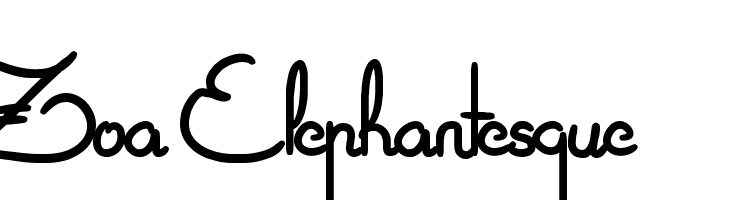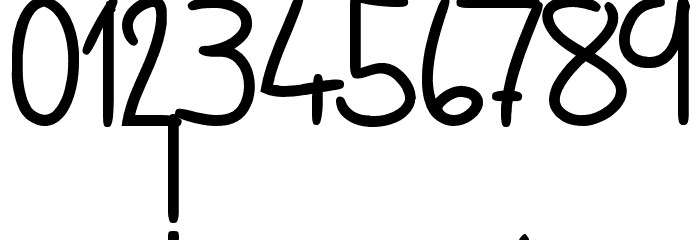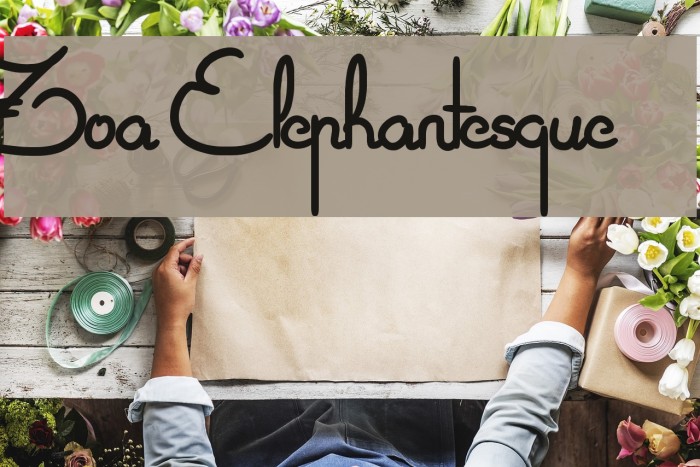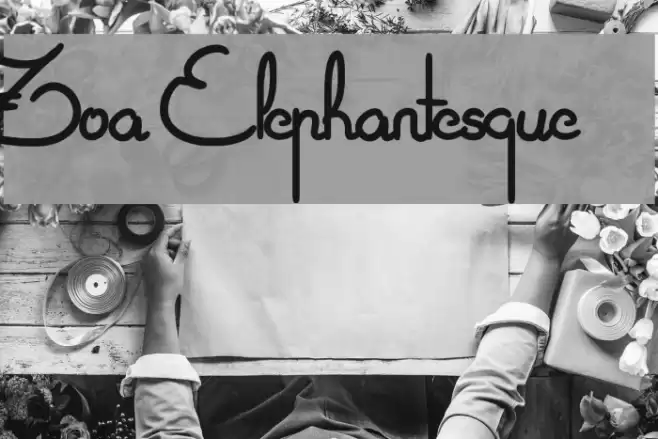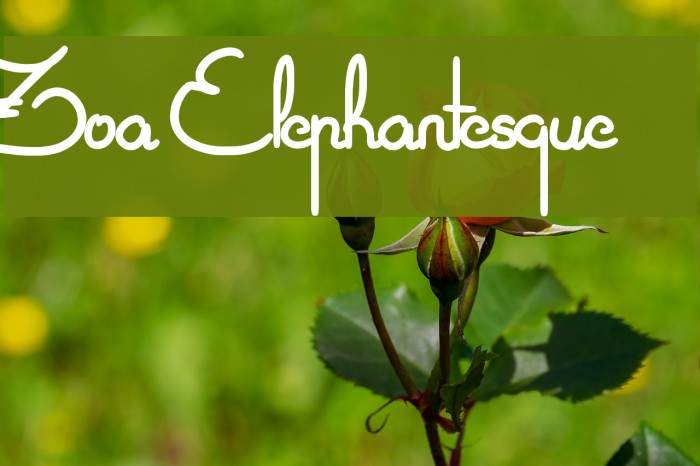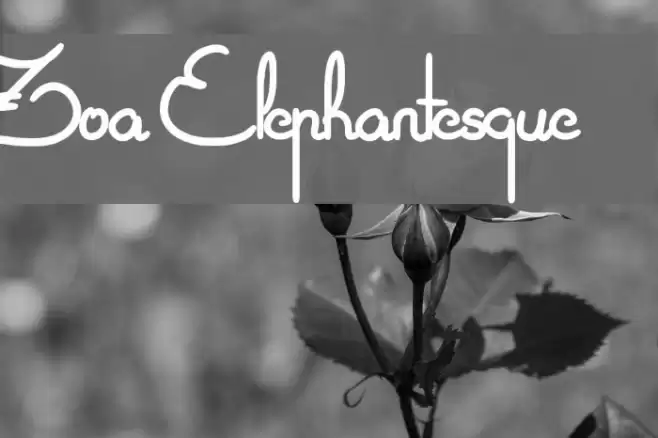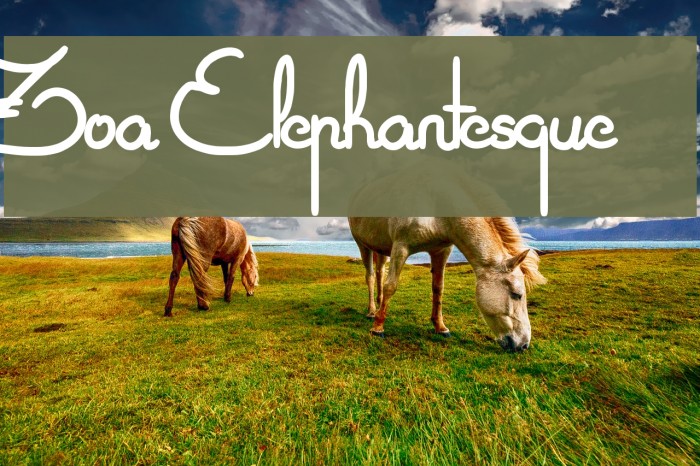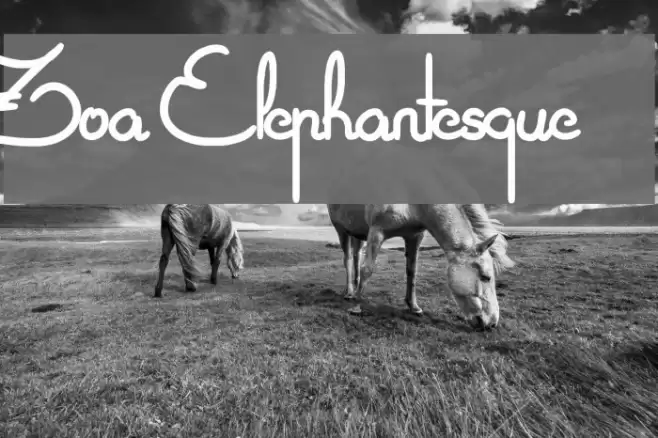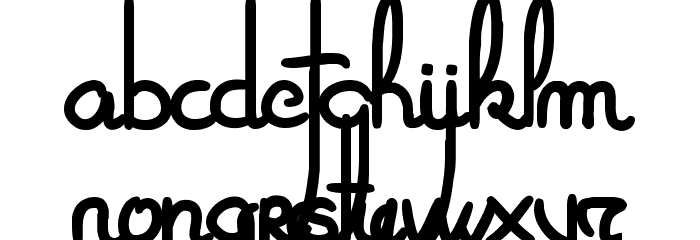
Zoa Elephantesque Font
Zoa Elephantesque Description
This font features a playful and whimsical design with a handwritten style. The letters are characterized by their flowing, interconnected strokes, giving a sense of movement and fluidity. The uppercase and lowercase letters maintain a consistent style, with rounded edges and a casual, informal appearance. The numbers and special characters follow the same aesthetic, ensuring a cohesive look across all elements. The overall design is bold and expressive, making it suitable for creative and artistic projects.
| Use Case | Logos, Headlines, Posters |
| Proposed Projects | Ideal for greeting cards, children's books, playful branding, and artistic posters. |